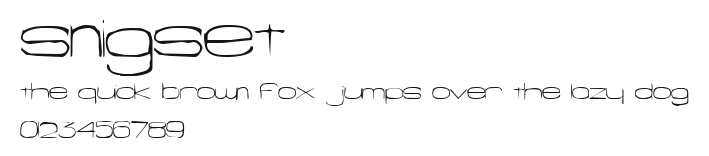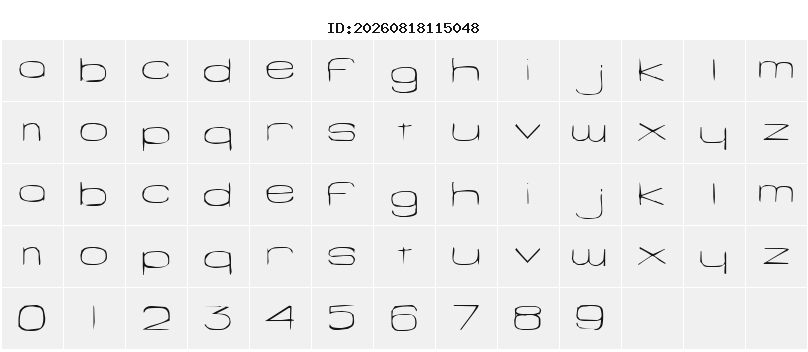
• Font Name: Snigset
• Full Font Name: Snigset
About Snigset.ttf
Snigset.ttf is a modern, elegant sans-serif font designed for ultimate readability and visual harmony. Perfect for branding, headlines, web design, and print materials.